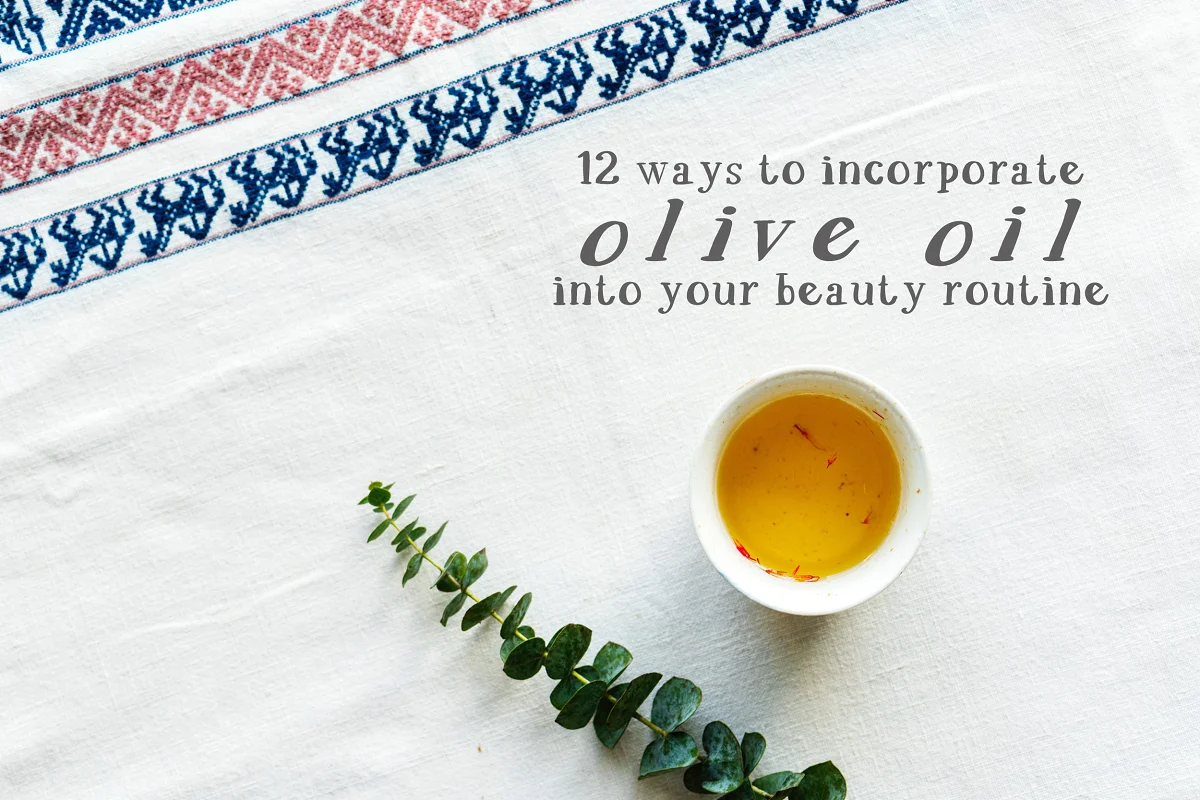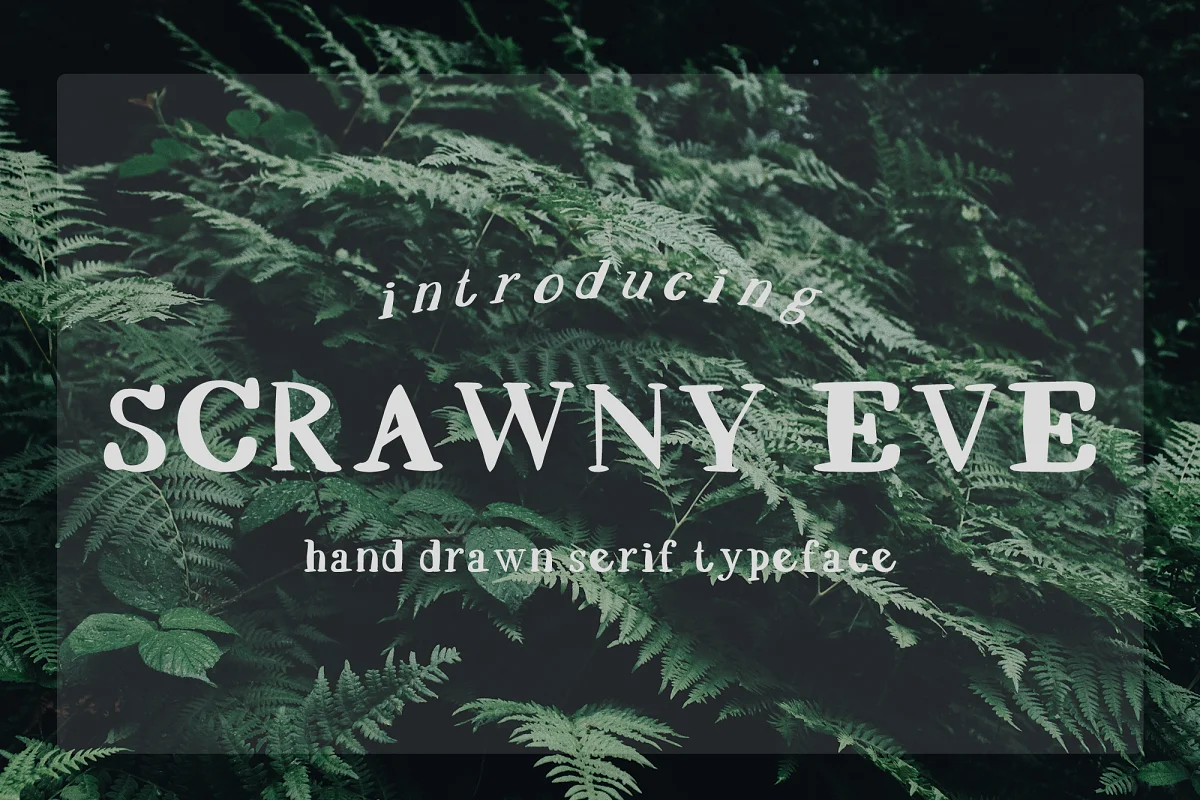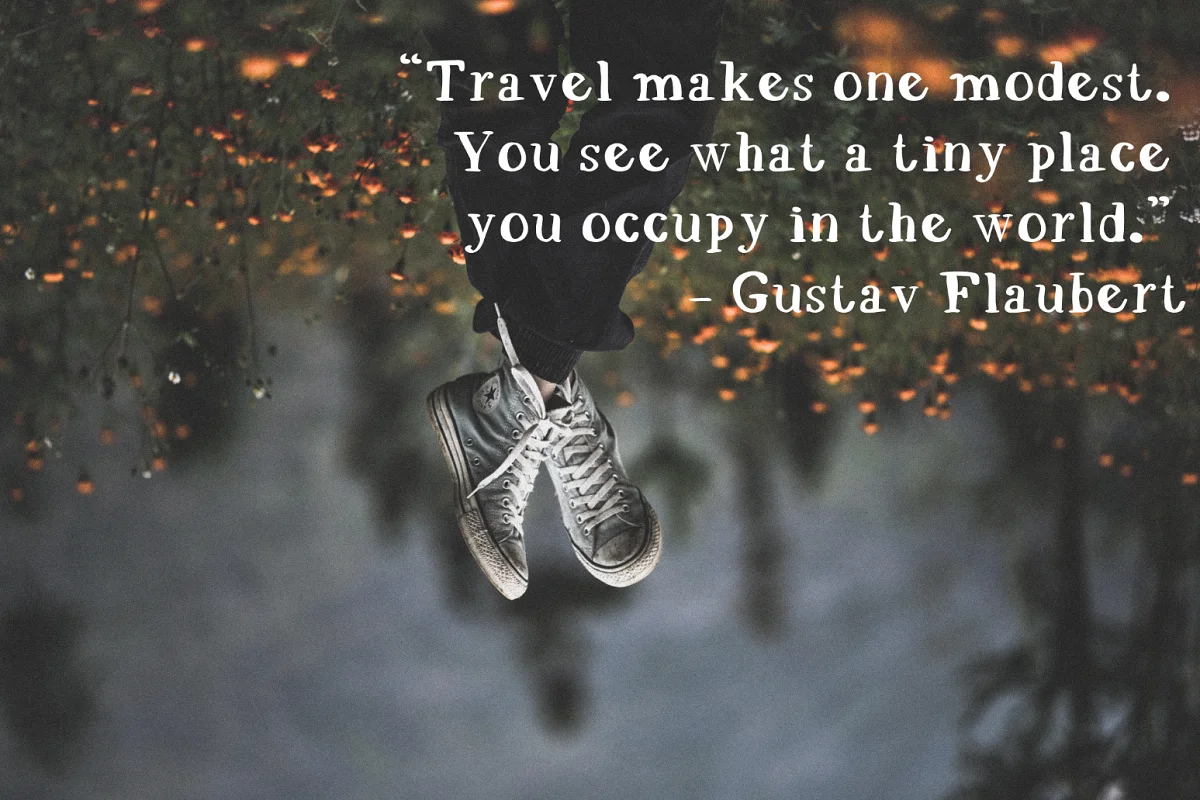
About the Scrawny Eve Hand Drawn Serif Font
Introducing SCRAWNY EVE – a hand drawn serif typeface with loveable quirk. Includes full capitals, lowercase, italics, numerals, a range of punctuation, and wide array of multilingual characters.